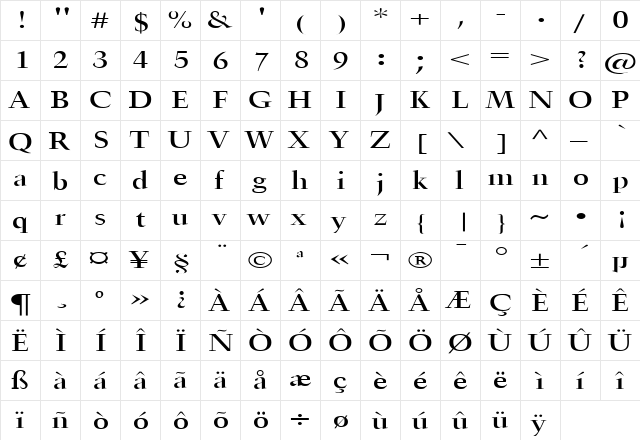
Horn Extended Normal
Design Context for Horn Extended Typeface
Horn Extended takes a measured approach to typography — its balanced proportions and neutral character make it a reliable workhorse for both digital and print work.